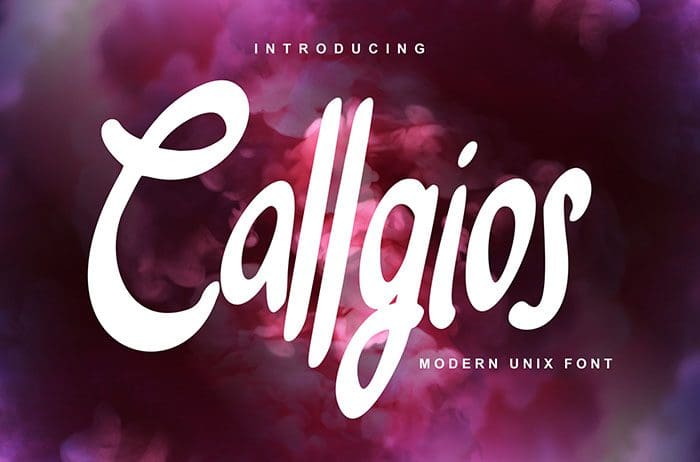
Callgios Display Font
Callgios Display Font is a modern script with a uniquely dynamic approach to designs. Perfect for greeting cards, posters, flyers, and more. Thanks to Vunira Studio for sharing this font! Take a look at this portfolio for more of his stunning fonts.